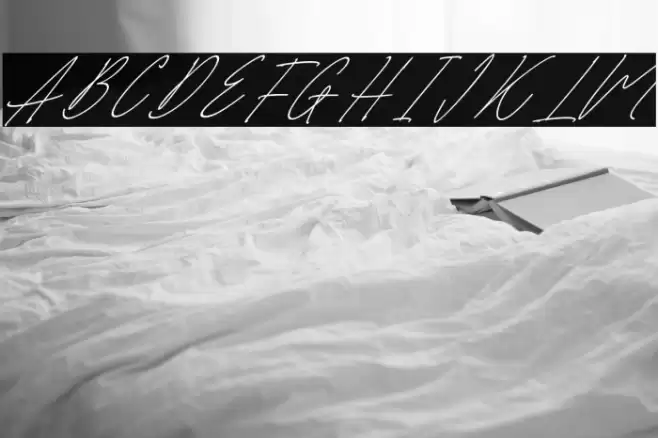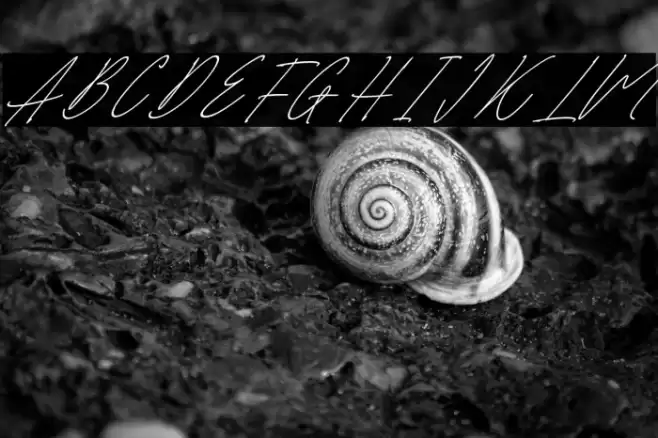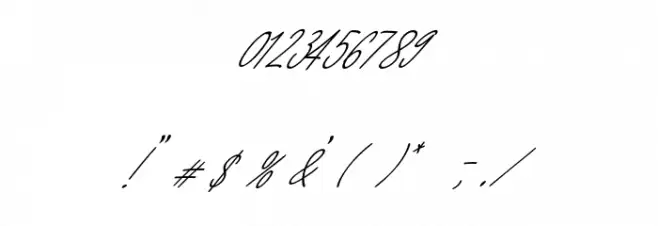
Overwatch-Regular Font
Overwatch-Regular Description
This font features a dynamic and flowing script style, characterized by its elegant and elongated letterforms. The strokes are thin and fluid, creating a sense of movement and grace. Each character connects seamlessly to the next, enhancing the cursive appearance and providing a handwritten feel. The uppercase letters are slightly more structured, while the lowercase letters exhibit a more casual and freeform style. The numerals and special characters maintain the same fluidity, ensuring consistency across all glyphs. This font is ideal for projects that require a personal touch or an artistic flair.
A dynamic and flowing script font with elegant, elongated letterforms from Uncategorized fonts.
- Font: Overwatch-Regular
- Proposed Projects: Ideal for wedding invitations, greeting cards, personal branding, and artistic projects.
- Overall Style: Elegant
- Use Case: Logos, Invitations, Artistic projects